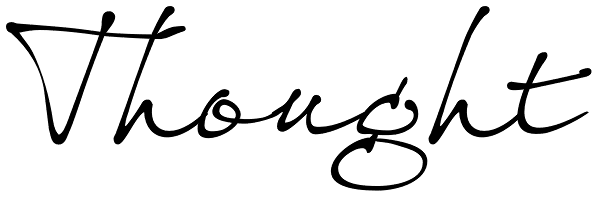
Thought
Thought, with its versatile five styles, is ideal for contemporary display work. It has style, flair, legibility, and interesting, flowing letter shapes. The Family: -- REGULAR - of medium weight - clear and legible; -- BLACK - for bolder statements...
Thought
Thought Black
Thought Linear 25
Thought Linear 45
Thought Zest